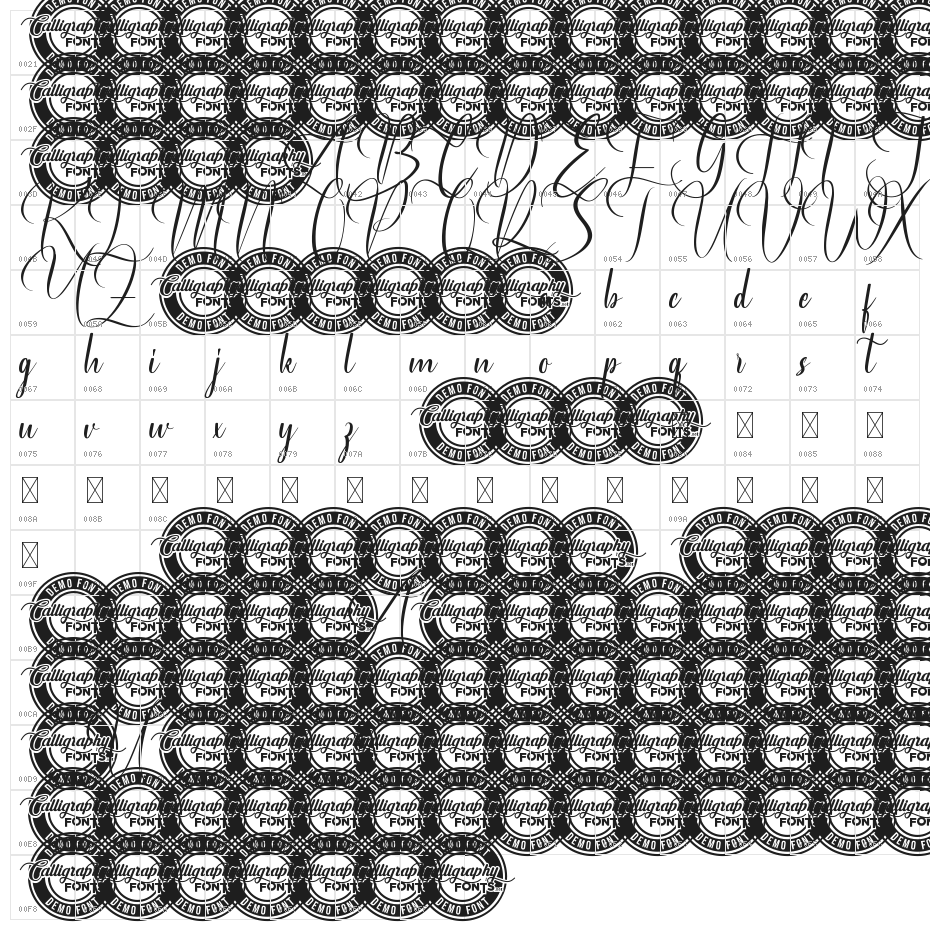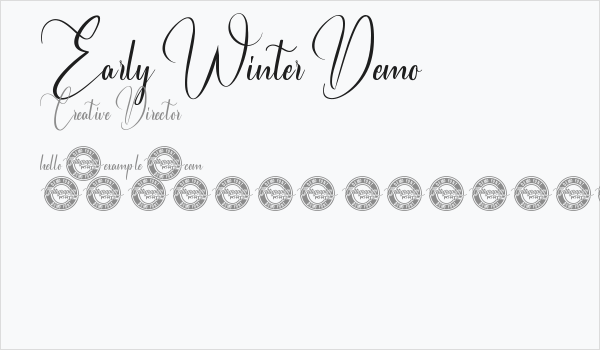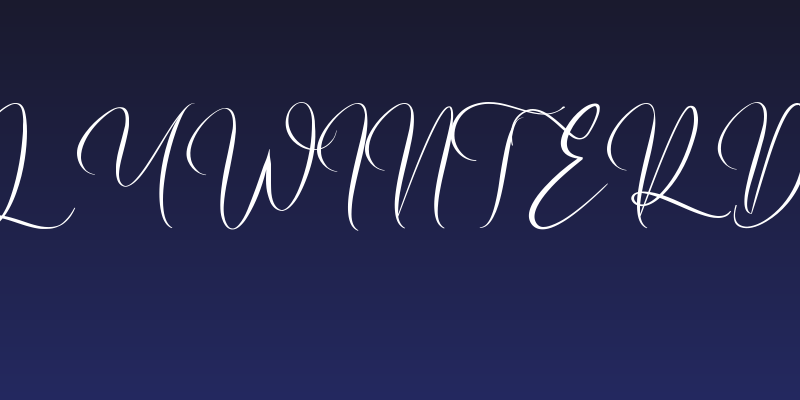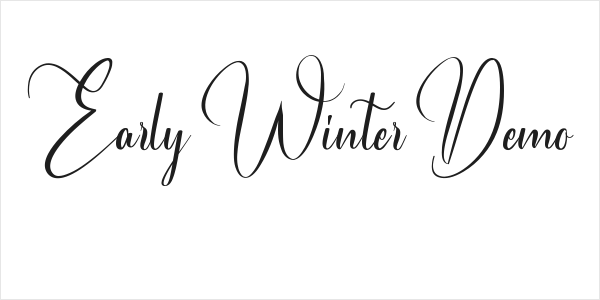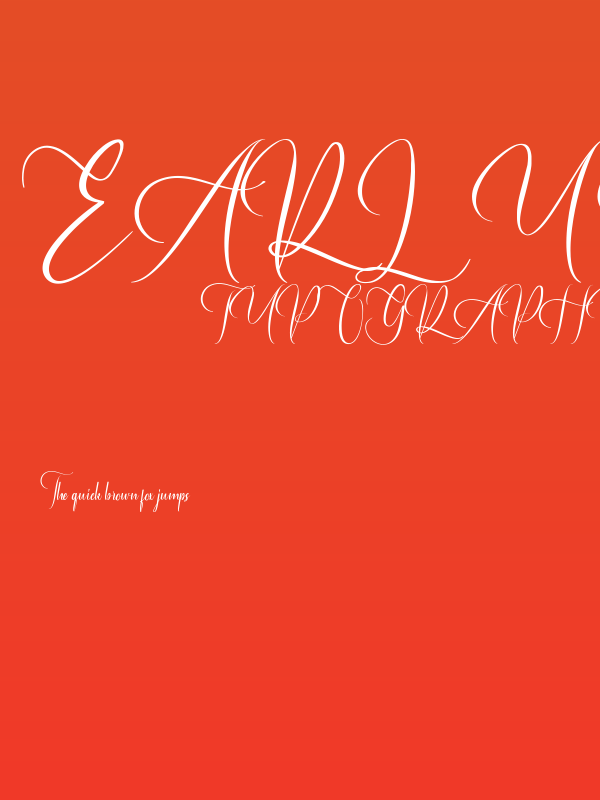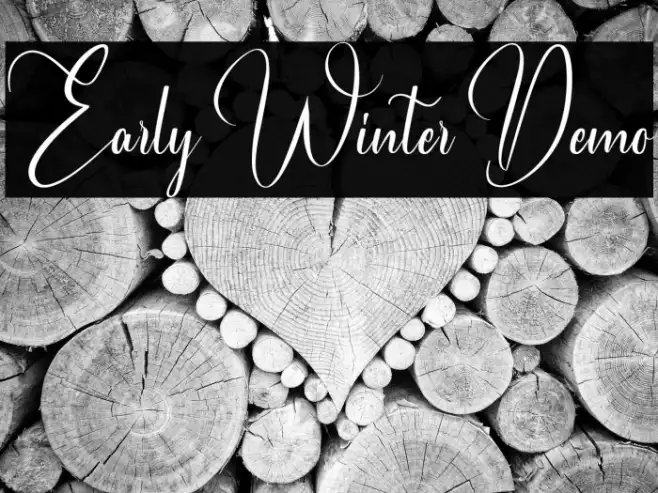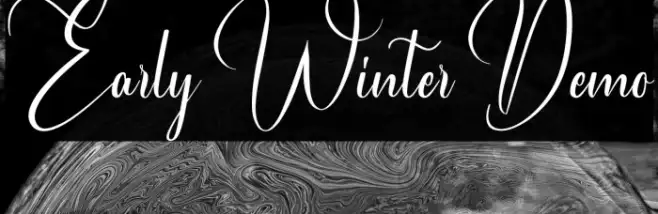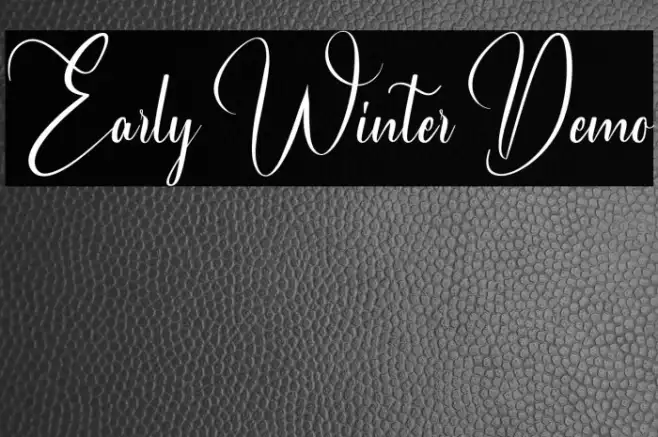
Early Winter Demo Font
Early Winter Demo Description
This elegant script font features a flowing, cursive style with graceful loops and swashes. The uppercase letters are particularly ornate, with sweeping ascenders and descenders that give a sense of movement and fluidity. The lowercase letters maintain a consistent style, with a slightly more compact form that complements the uppercase characters. The font has a hand-drawn quality, reminiscent of traditional calligraphy, yet it maintains a modern touch. The characters are well-spaced, allowing for readability while preserving the artistic flair. This font is ideal for creating sophisticated and stylish designs, adding a touch of elegance to any project.
| Overall Style | Elegant, Modern |
| Proposed Projects | Wedding invitations, greeting cards, branding, and elegant packaging designs. |